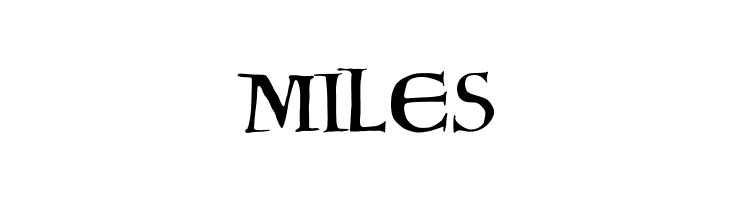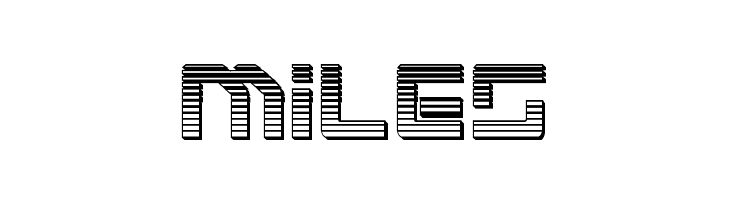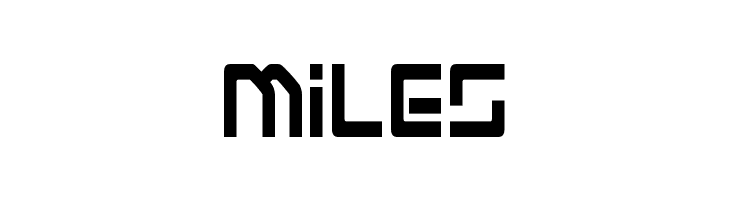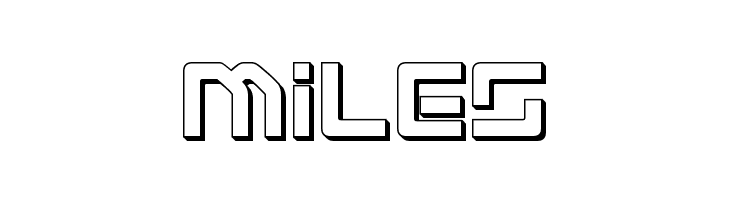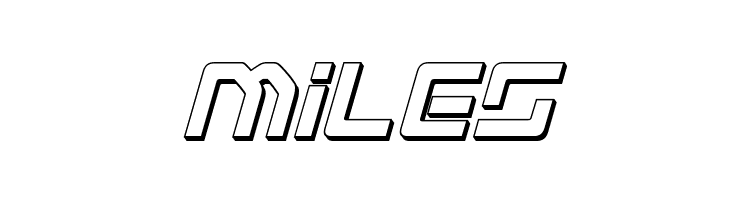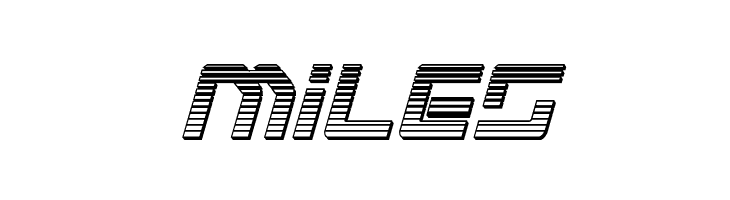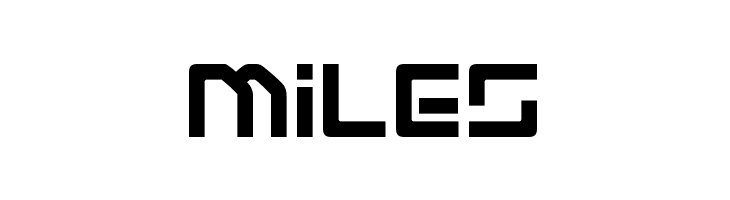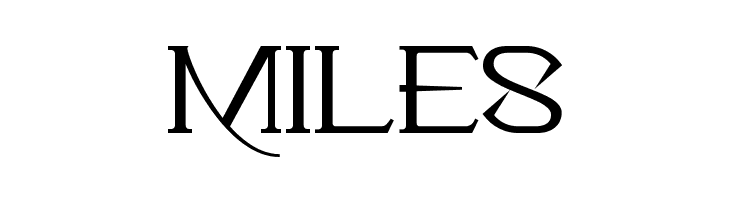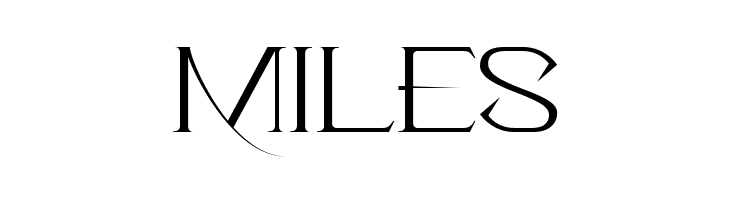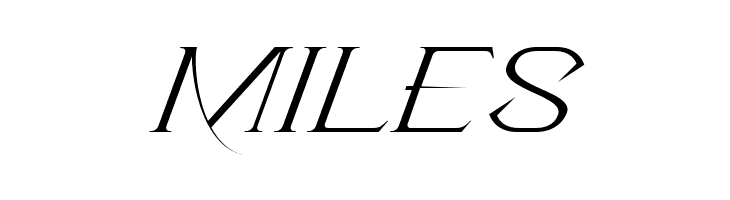
A whimsical, hand-drawn font with playful and irregular strokes.
A playful, hand-drawn font with a whimsical and dynamic style.
A bold, playful font with a hand-drawn, artistic style.
A bold, geometric font with a futuristic and digital aesthetic.
A bold, geometric font with a futuristic and edgy design.
A bold, geometric font with a modern, digital aesthetic.
A bold, angular, and italic font with a futuristic and dynamic style.
A bold, italicized font with a modern, futuristic style and strong geometric shapes.
A bold, distressed font with a vintage collegiate style.
A bold, textured font with a grunge-like, hand-drawn appearance.
A whimsical, hand-drawn font with irregular, playful letterforms.
A bold, brush-like font with a distressed, dynamic appearance.
A bold, distressed font with a grunge aesthetic and textured, weathered characters.
A bold, playful font with wavy, exaggerated curves and a whimsical style.
An artistic, calligraphic font with swirling, dynamic lines and elaborate flourishes.
A bold, dramatic Blackletter-style font with intricate, angular designs.
A whimsical, handwritten font with flowing, cursive forms and a playful appearance.
A bold, gothic-inspired font with sharp, angular edges and intricate details.
A refined, slanted font with elegant, flowing letterforms and moderate contrast.
A decorative serif font with high contrast and geometric, angular details.
A dynamic, brush-stroke font with an artistic and textured appearance.
A bold, playful script font with a lively and dynamic style.
A bold, handwritten-style font with rounded, expressive characters.
A bold, handwritten-style font with a casual, playful appearance.
A high-contrast, elegant font with a modern and sophisticated style.
A bold, playful font with thick, rounded strokes and a hand-drawn feel.
An elegant script font with flowing, cursive lines and sophisticated flair.
A bold, ornate blackletter font with intricate details and a historical aesthetic.
A bold, shadowed blackletter-style font with ornate, dramatic characters.
A classic blackletter font with sharp, angular forms and bold strokes.
A bold, gothic blackletter font with intricate, angular letterforms.
A traditional blackletter font with ornate, angular letterforms.
A bold, decorative font with a playful, three-dimensional style.